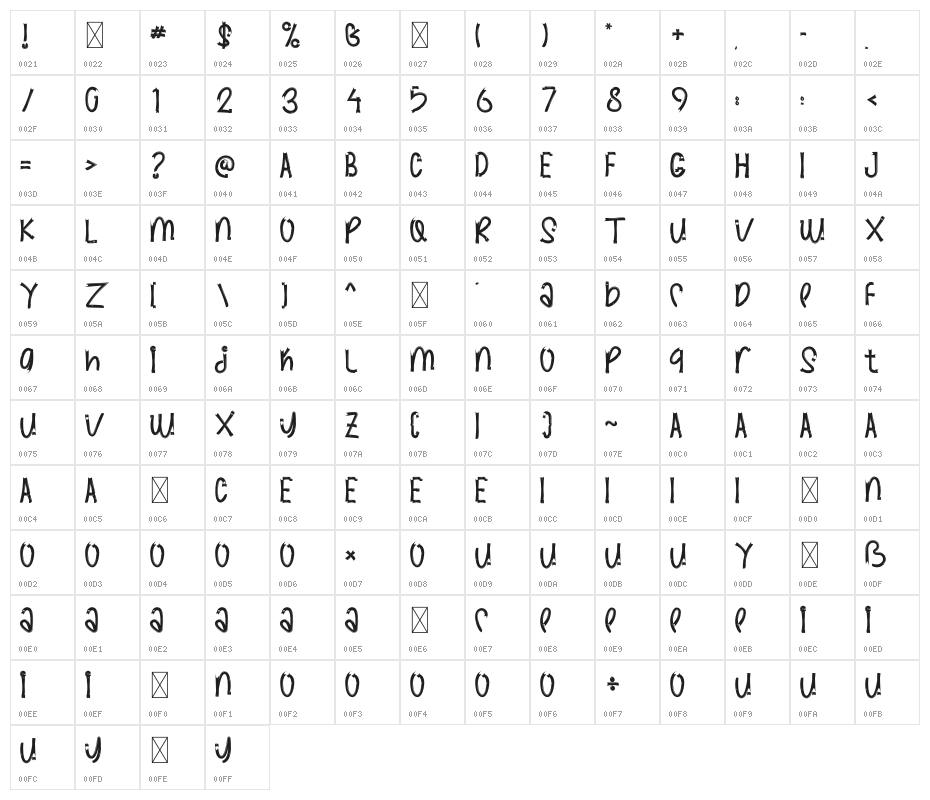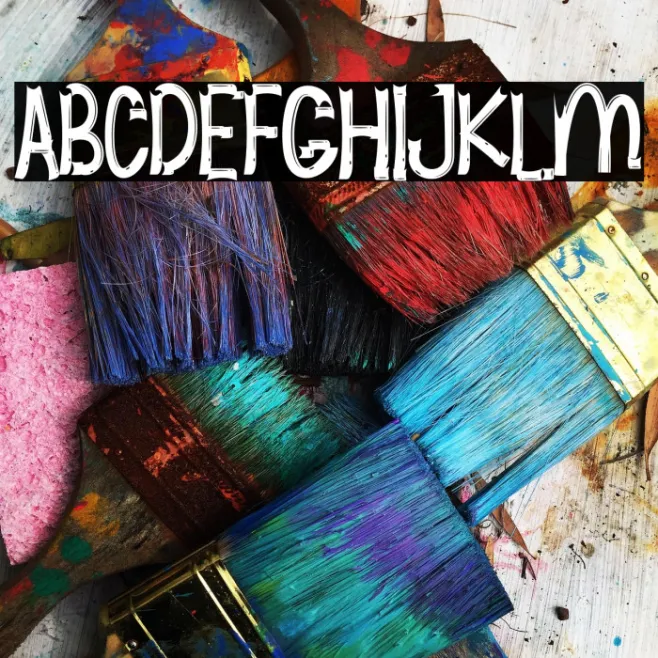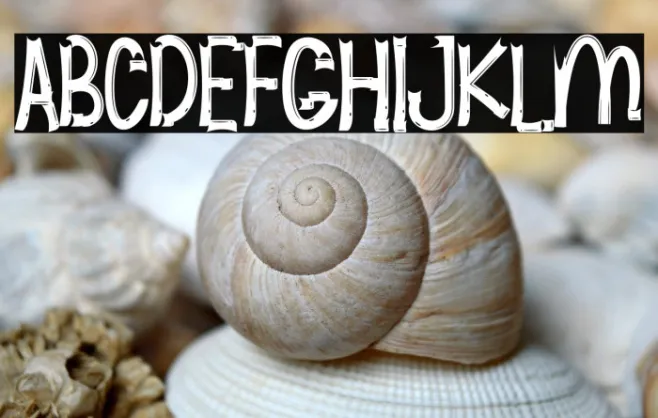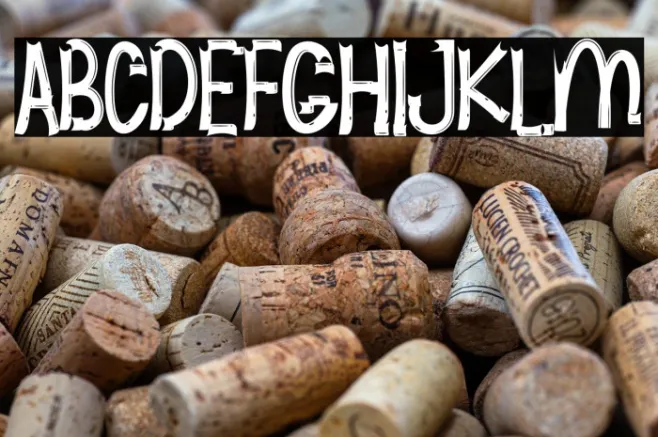
GRAPHIC PLANT Font
GRAPHIC PLANT Description
This font features a bold, artistic style with a playful and dynamic appearance. The characters are crafted with a brush-like texture, giving them a hand-drawn feel. Each letter has unique, exaggerated curves and strokes, adding to the overall whimsical and creative look. The uppercase and lowercase letters maintain a consistent style, while the numbers and special characters follow the same artistic theme. This font is ideal for projects that require a bold and expressive touch, making it suitable for creative and eye-catching designs.
| Proposed Projects | Ideal for posters, album covers, artistic branding, and creative advertising campaigns. |